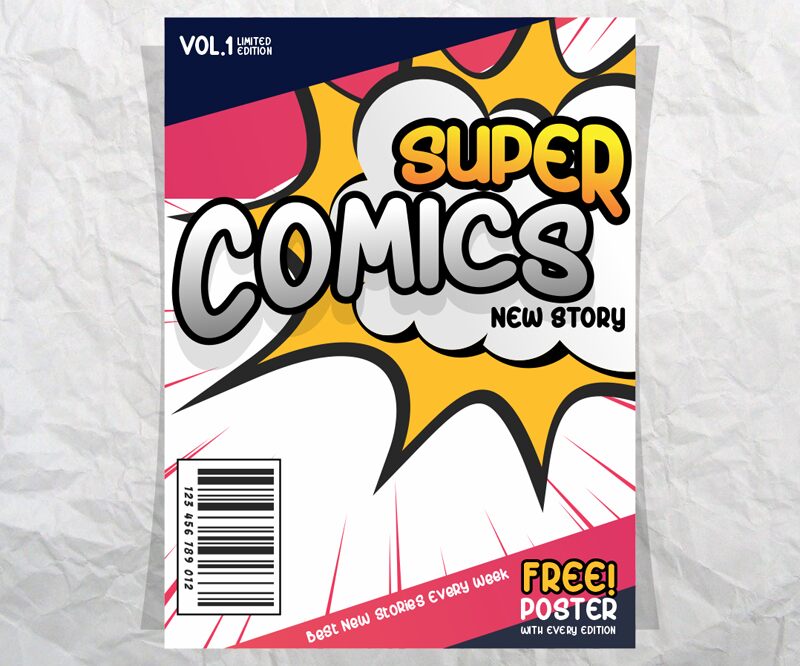
Big Boss font designed by Almaz Studio is perfect for those of you who want the style of children. Fonts Made specifically for purposes such as: Kindergarten, Birthday, Kid, Cartoon, Comic, Children, and Playful.